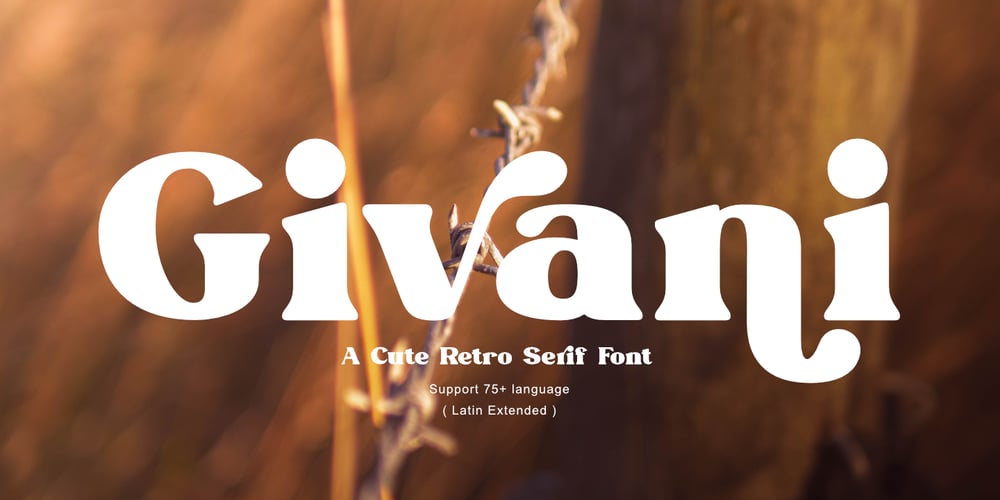
Givani Font Family was designed by Muhammad Romzul Khoir and published by Khoir. Givani contains 1 styles and family package options. Introducing, Givani, a font with a retro look but cute impression making this font unique with a consistent thickness, making memories of the 70s era, this font has an interesting alternative as well as several ligatures to complement it. This font is perfect for creating logos, invitations, novels, books, magazines, labels, greeting / wedding cards. So what are you waiting for!What’s included? Uppercase Characters Lowercase Characters Support 75+ Language FEATURESGivani (OTF)So what are you waiting for? immediately purchase this font, feel free to comment, or send me my PM or email at khoirtypework@gmail.com Thank you for seeing